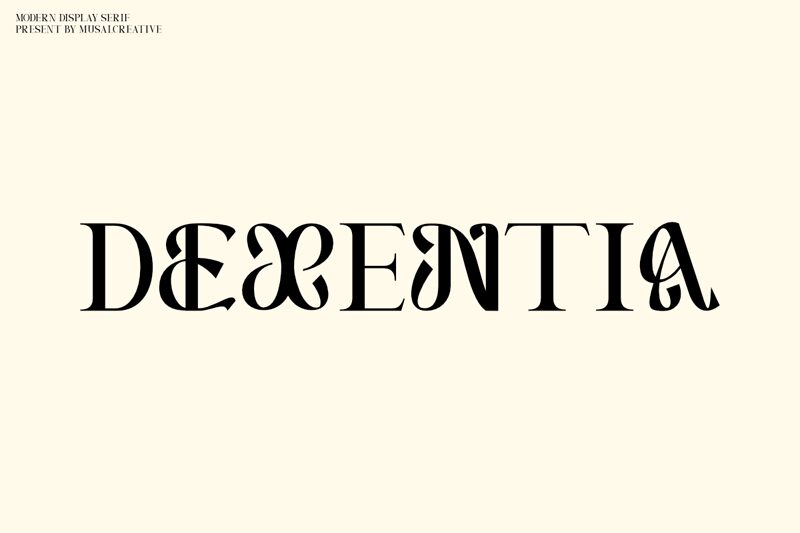
Dexentia font by Muksal Creative is a free serif font featuring a modern ornamental design. Its striking contemporary look is accomplished through the crafty construction of the letters that gently surprises readers at each turn. Unlike ordinary display fonts, this one achieves its unique look through clever yet simple design solutions which guarantee its longevity throughout everchanging design trends.
Being a highly versatile display font makes Dexentia perfect for branding and identity projects, websites, packaging, magazines, and social media posts. It is equally suitable for designing business cards, invitations, book covers, posters, banners, and otherwise.